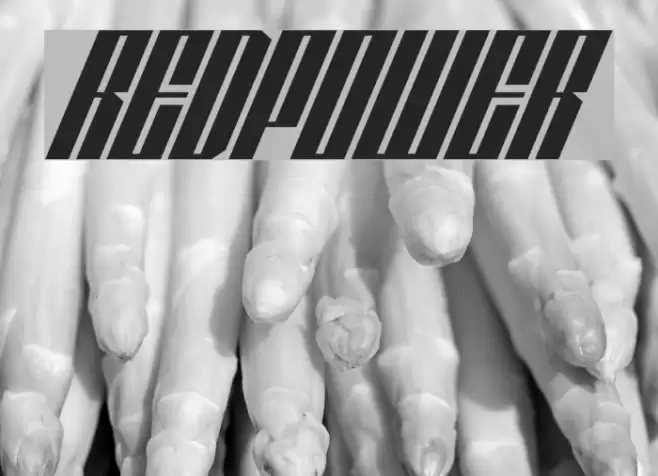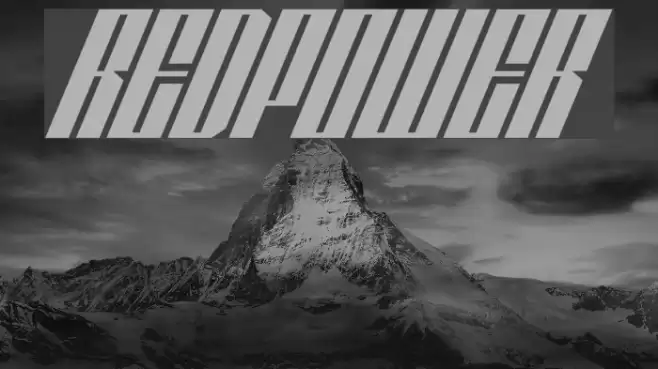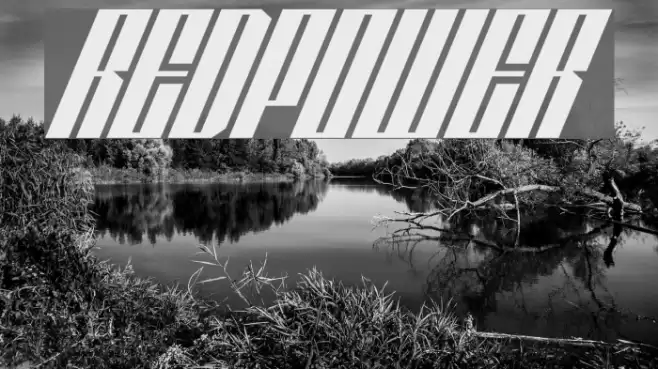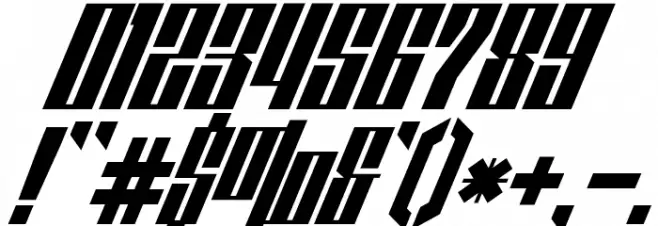
REDPOWER Font
REDPOWER Description
This font features a bold and dynamic style with a strong slant, giving it a sense of motion and energy. The characters are tightly spaced, enhancing its compact and impactful appearance. The strokes are thick and consistent, providing a high contrast that makes each letter stand out distinctly. Its angular and geometric design adds a modern and edgy feel, making it suitable for attention-grabbing headlines and logos. The uppercase and lowercase letters maintain a uniform style, while the numerals and special characters are designed to complement the overall aesthetic.
A bold, slanted font with high contrast and a modern, dynamic style from Uncategorized fonts.
- Proposed Projects: Ideal for sports branding, dynamic posters, automotive logos, and energetic advertising campaigns.
- Character Spacing: Tight